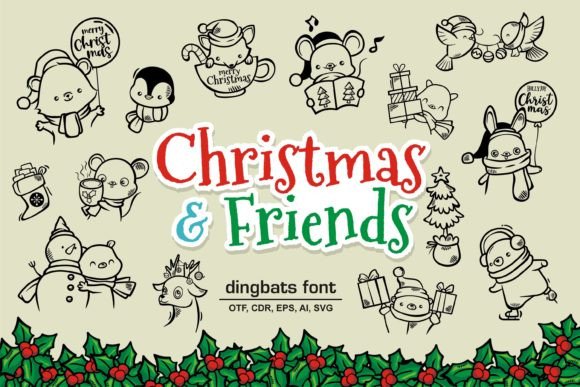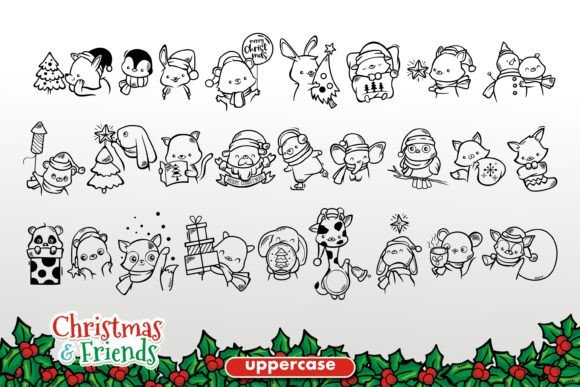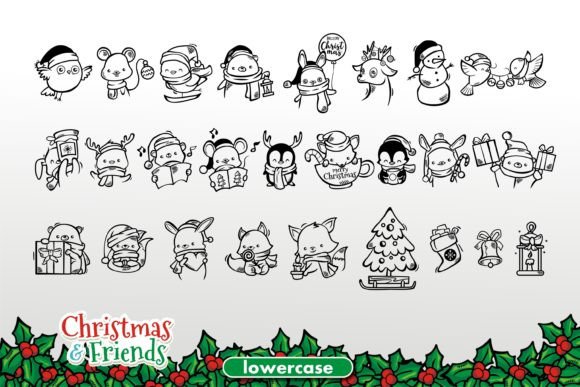
ABOUT CHRISTMAS AND FRIENDS FONT
Christmas and Friends is a delightful and heartwarming dingbats font that captures the spirit of the holiday season. With its stunning collection of Christmas-themed characters, this font is perfect for adding a touch of festive cheer to your winter crafts.
The Christmas and Friends font brings together a variety of charming and adorable dingbats that represent the joy and magic of Christmas. From Santa Claus and reindeer to snowflakes and presents, these characters embody the essence of the holiday season. Whether you’re creating Christmas cards, gift tags, decorations, or any other winter crafts, this font will add a sweet and festive touch to your designs.
The warm and inviting nature of the Christmas and Friends font makes it a perfect choice for spreading holiday cheer. The characters evoke feelings of joy, togetherness, and celebration, making it an ideal font for capturing the spirit of Christmas in your projects. Whether you’re designing invitations, party decorations, or even social media graphics, this font will bring a sense of warmth and happiness to your designs.
One of the great advantages of using a dingbats font like Christmas and Friends is the versatility it offers. You can easily mix and match the different characters to create unique compositions and arrangements. The font provides a wide range of options, allowing you to create visually appealing designs that are personalized and tailored to your specific project.
Additionally, the Christmas and Friends font is suitable for a variety of winter crafts beyond Christmas itself. It can be used for New Year’s celebrations, winter-themed events, or even general winter crafts. The charming characters and festive elements can be incorporated into various projects, bringing a touch of seasonal magic to your creations.
Overall, Christmas and Friends is a sweet, festive, and warm dingbats font that is perfect for winter crafts. With its stunning collection of Christmas-themed characters, it allows you to infuse your designs with the joy and magic of the holiday season. Whether you’re creating Christmas cards, decorations, or any other winter-themed projects, this font will add a delightful and heartwarming touch to your designs.